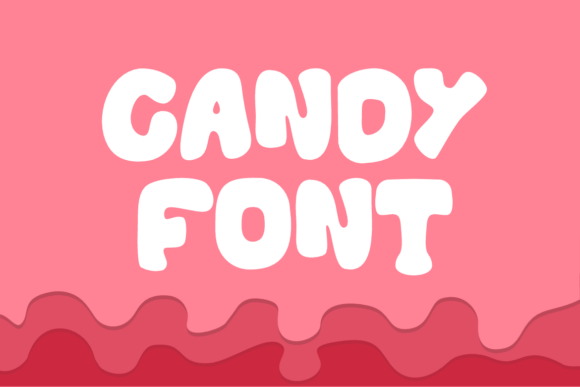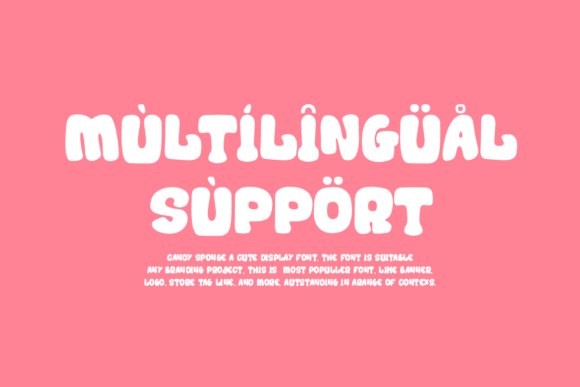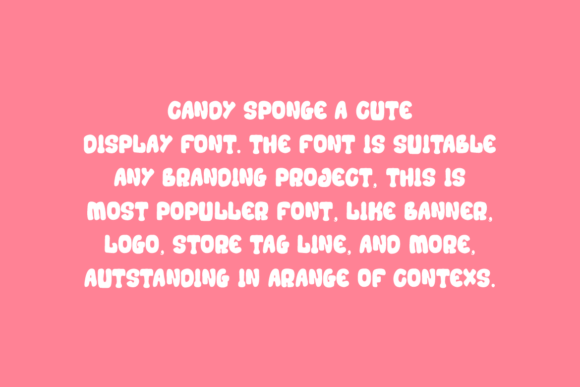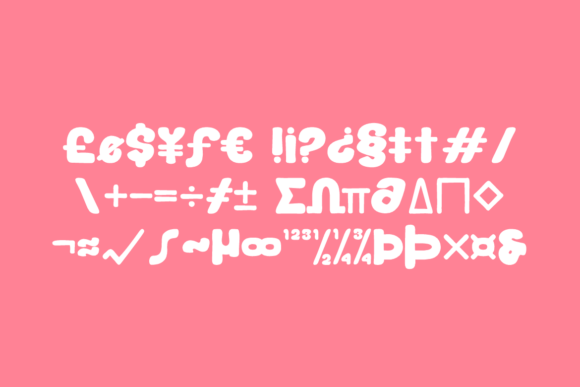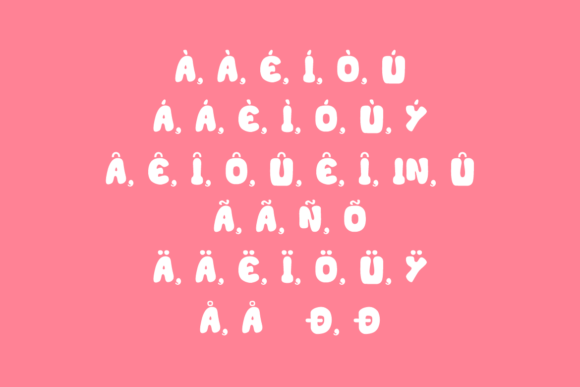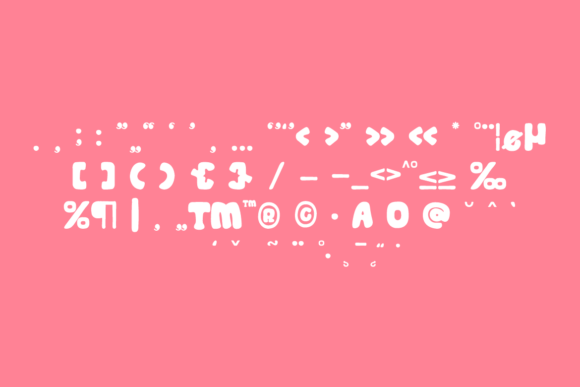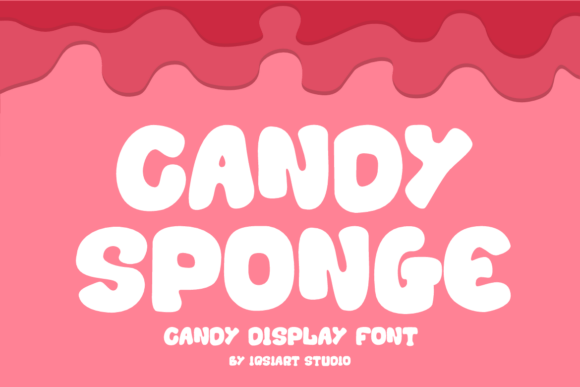
Candy Sponge Font: Add a Touch of Sweetness to Your Designs
Are you looking for a font that can bring a burst of fun and playfulness to your designs? Look no further than the Candy Sponge font! This bubbly and playful display font is perfect for adding a cheerful touch to your projects, and in this article, we’ll explore what makes it so special.
The Charm of Candy Sponge Font
Candy Sponge is a display font that is designed to bring a sense of sweetness and fun to your designs. Its soft, rounded characters and candy-like style make it irresistibly cute and full of charm. The font’s playful aesthetic is reminiscent of childhood treats and memories, making it perfect for projects that require a whimsical touch.
Perfect for Kids’ Projects and Birthday Cards
One of the best things about Candy Sponge font is its suitability for kids’ projects and birthday cards. The font’s playful and cheerful design makes it an excellent choice for creating fun and engaging materials for children. Whether you’re designing a birthday card, a kids’ party invitation, or a children’s book, Candy Sponge font is sure to delight.
Ideal for Logos and Packaging
Candy Sponge font is not just limited to kids’ projects and birthday cards. Its unique and playful design also makes it an excellent choice for logos and packaging. If you’re looking to create a brand identity that is fun, youthful, and energetic, Candy Sponge font could be the perfect fit. Imagine using this font for a candy store, a bakery, or a children’s clothing brand – it’s sure to make your brand stand out!
Key Features of Candy Sponge Font
- Soft and rounded characters: The font’s soft and rounded characters give it a friendly and approachable feel.
- Candy-like style: The font’s candy-like style is reminiscent of childhood treats and memories.
- Playful and cheerful: The font’s playful and cheerful design makes it perfect for projects that require a fun and energetic vibe.
- Highly legible: Despite its playful design, Candy Sponge font is highly legible, making it suitable for use in a variety of projects.
Tips for Using Candy Sponge Font
Here are a few tips for using Candy Sponge font in your designs:
- Use it in large sizes: Candy Sponge font is designed to make a statement, so use it in large sizes to maximize its impact.
- Pair it with complementary fonts: Pair Candy Sponge font with complementary fonts to create visual interest and hierarchy.
- Experiment with colors: The font’s playful design makes it perfect for experimenting with bright and bold colors.
In conclusion, Candy Sponge font is a bubbly and playful display font that brings fun and sweetness to your designs. Its soft, rounded characters and candy-like style make it perfect for kids’ projects, birthday cards, logos, packaging, and anything that needs a cheerful touch. With its highly legible design and versatility, Candy Sponge font is an excellent addition to any designer’s toolkit.
Get Ready to Add a Touch of Sweetness to Your Designs!